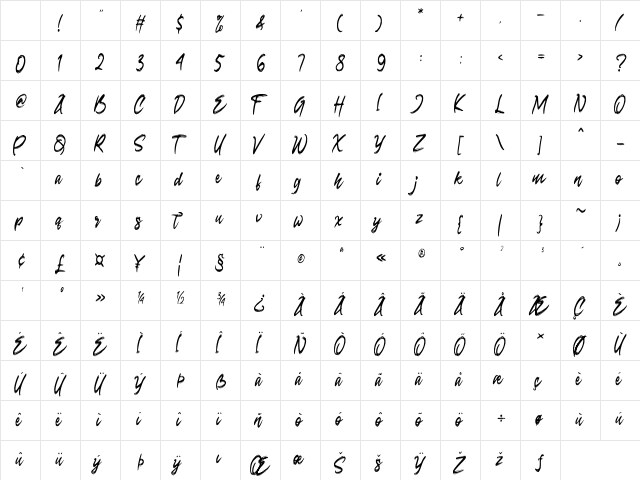
Seconds is a composed and adaptable typeface that performs quietly and consistently across a wide range of design contexts. Its narrow stance lets it pack a punch even in space-constrained designs.
Pro Tip: Use Seconds in both headline and body roles to test its range before committing to a single application.